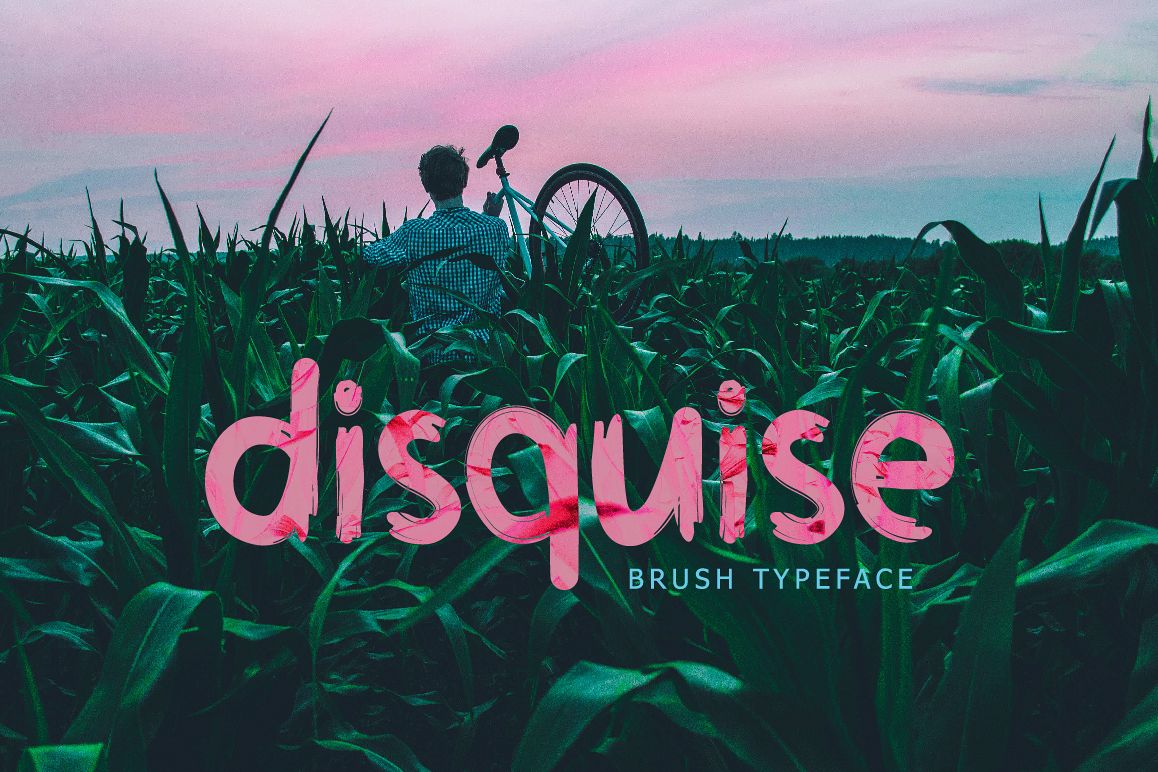
Disquise Brush Typeface
Disguise-Regular
Introducing Disquise Brush Typeface
Ideal for handwritten quotes, product packaging, t-shirt, header, poster, and applicable for any graphic design. Disquise Brush Typeface comes with uppercase and lowercase characters,
large set of punctuation glyphs, numerals, and supports international languages.